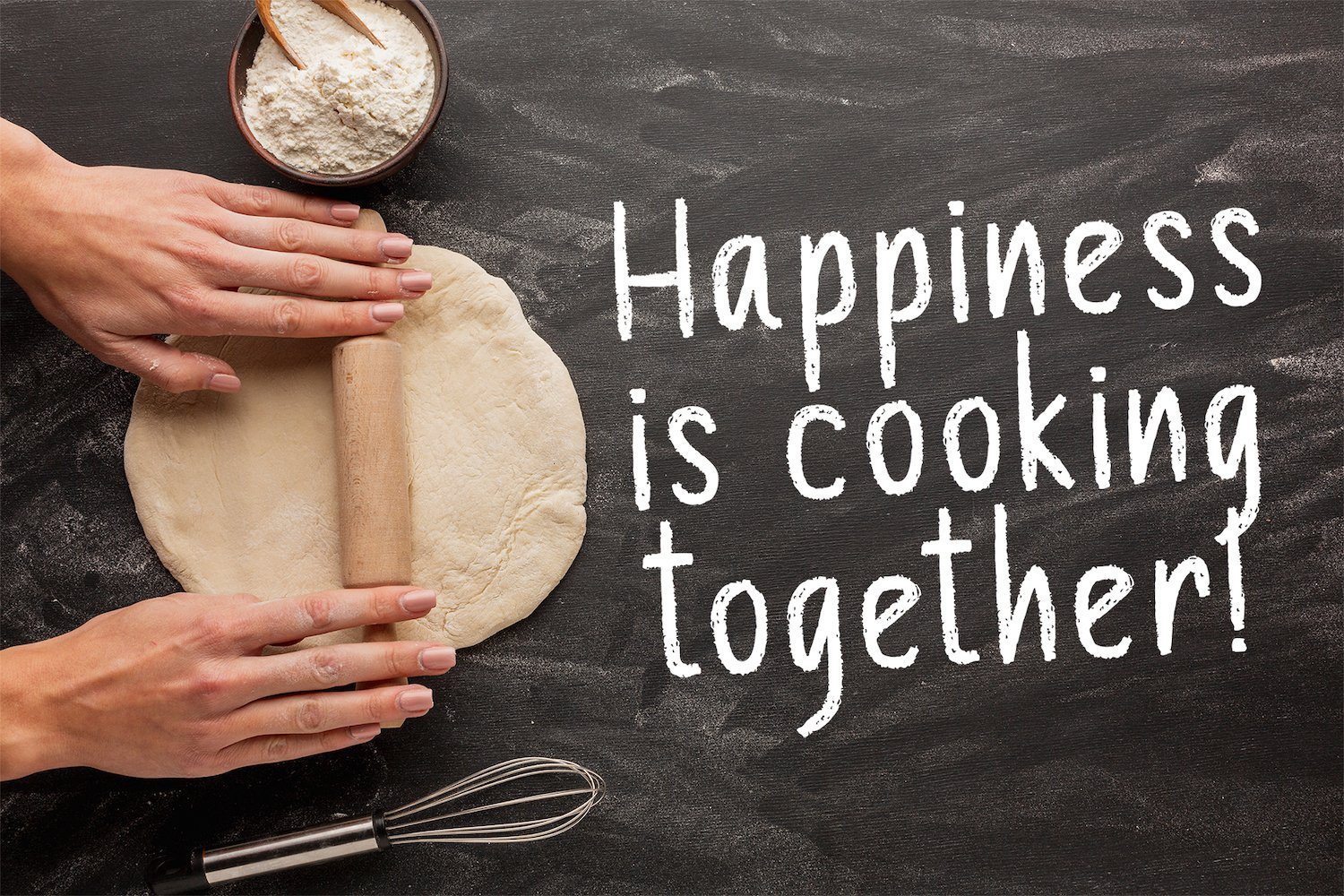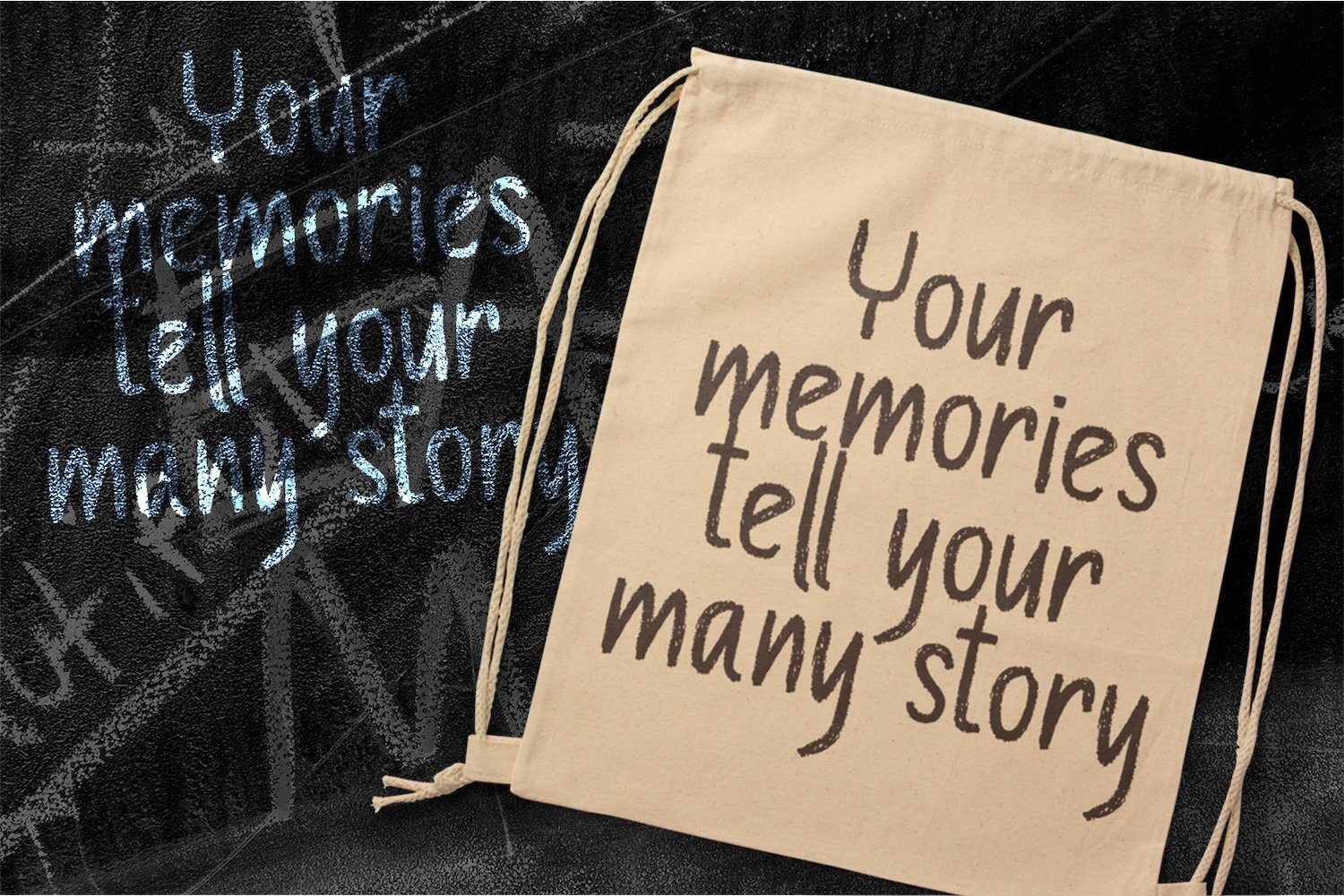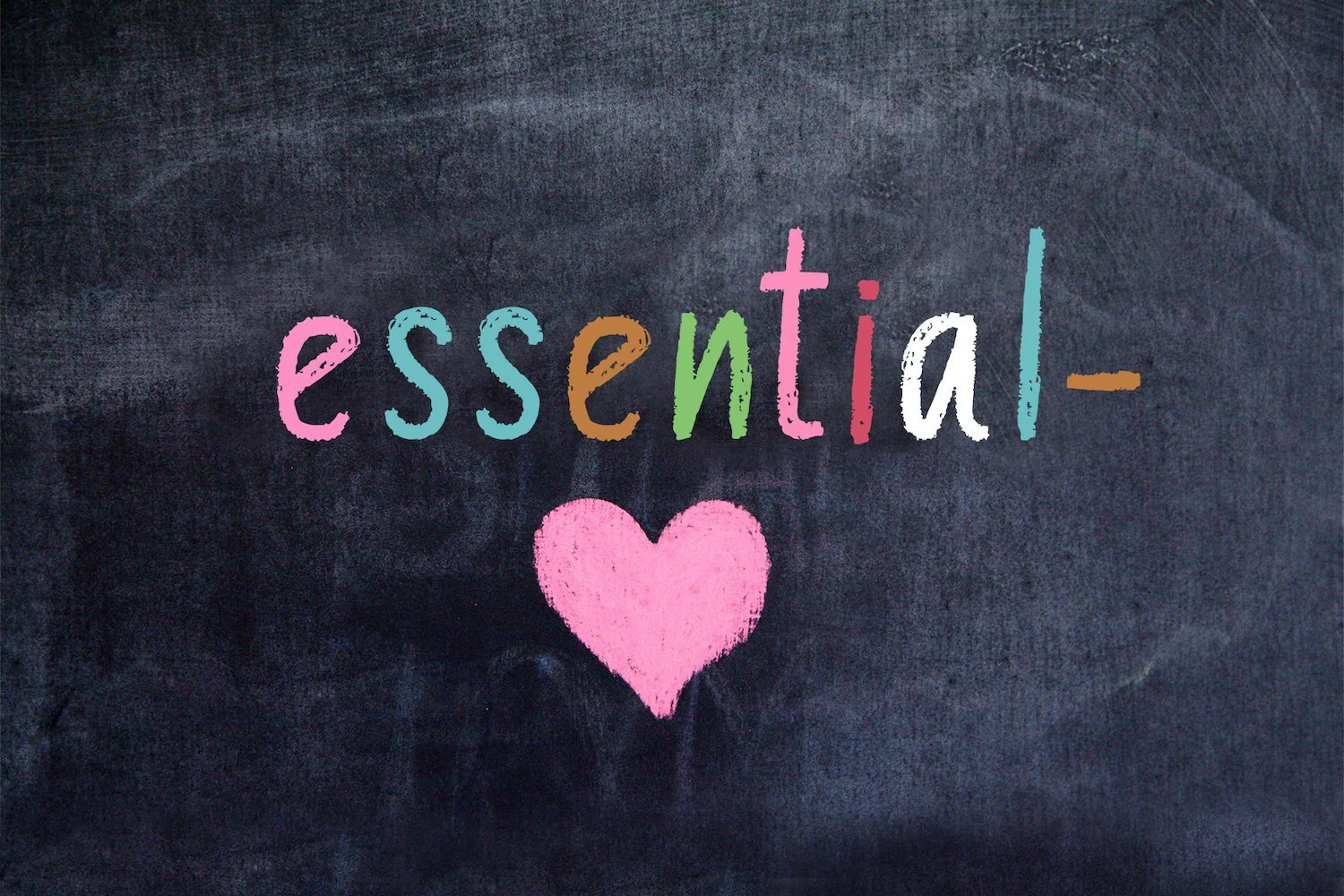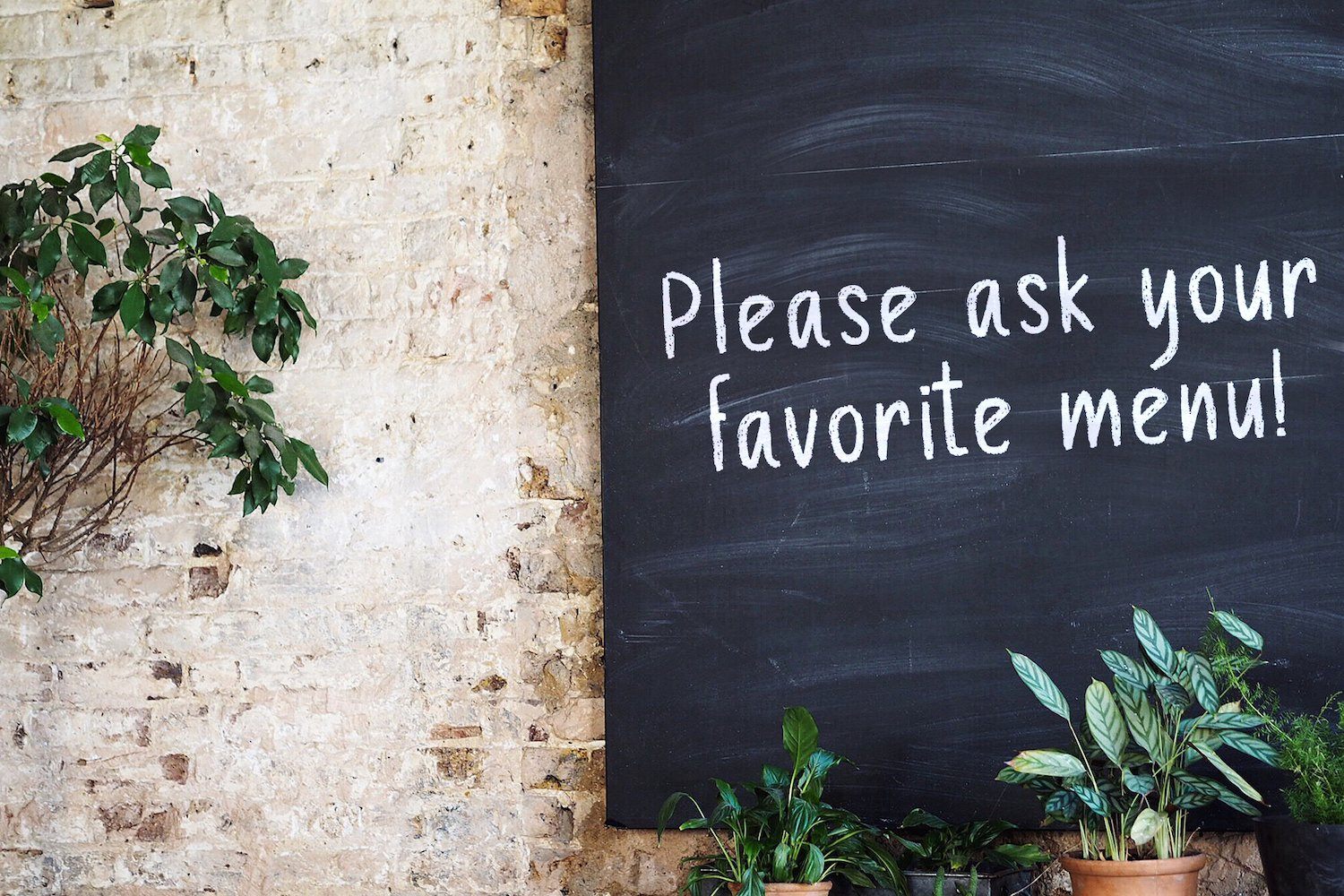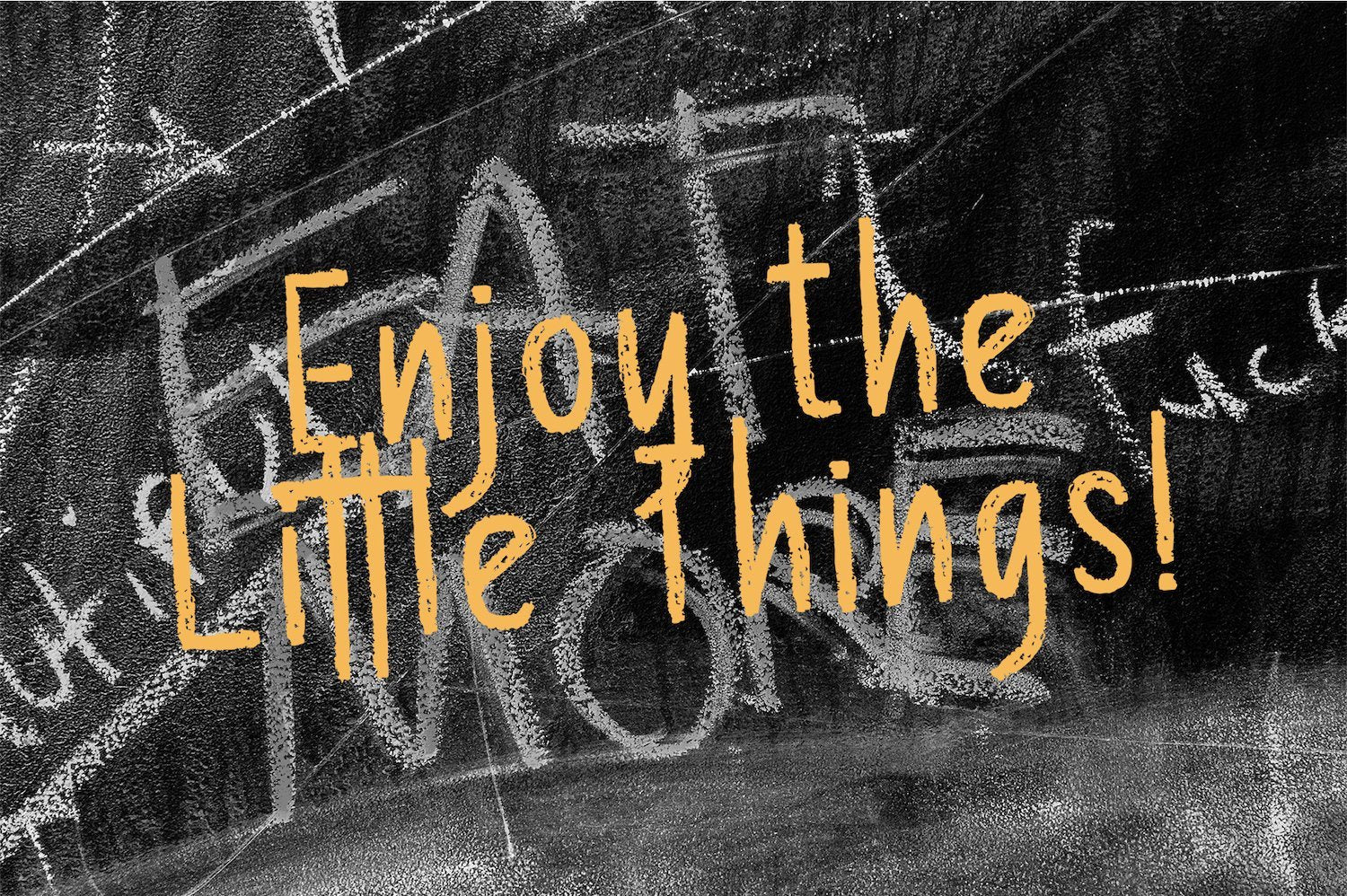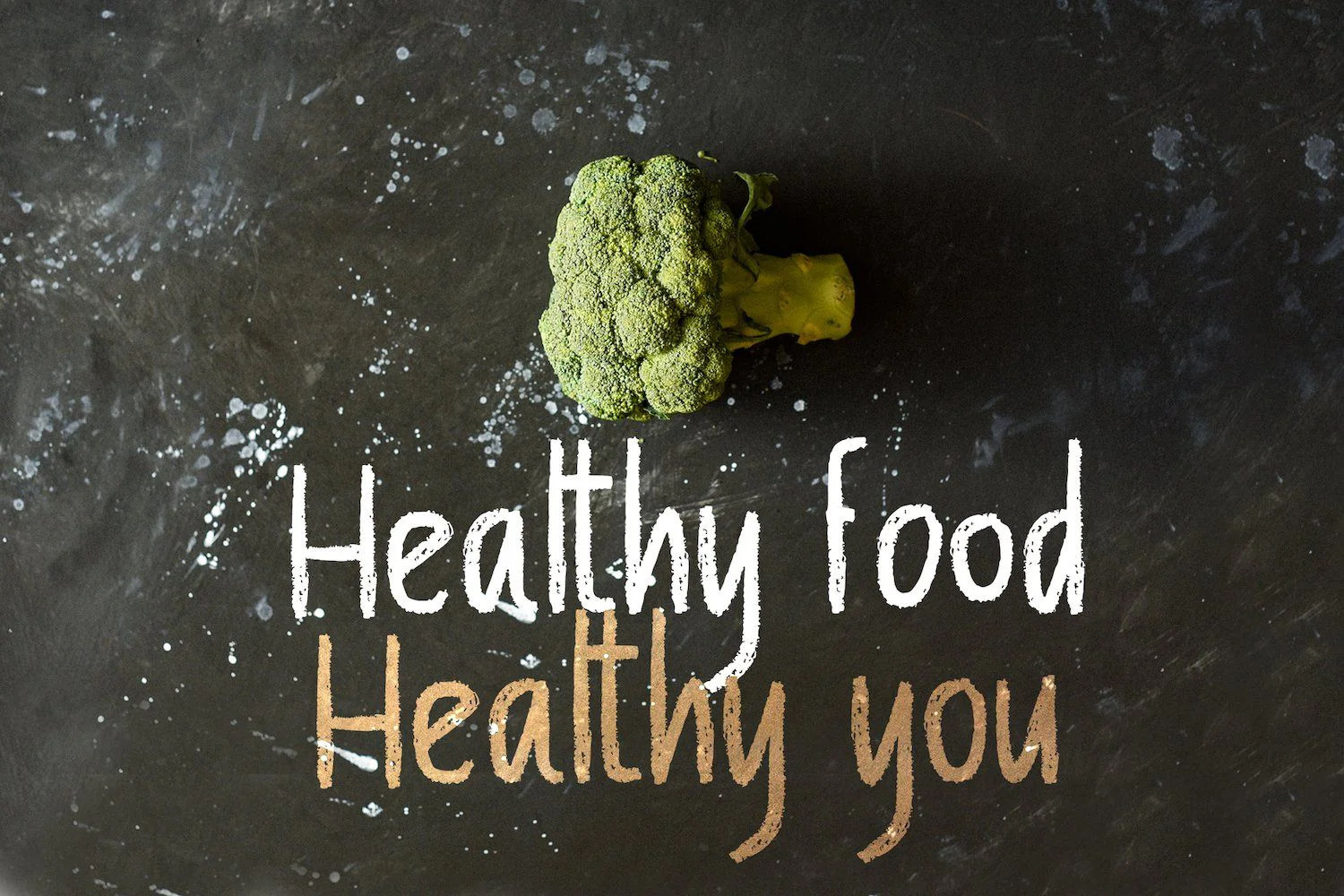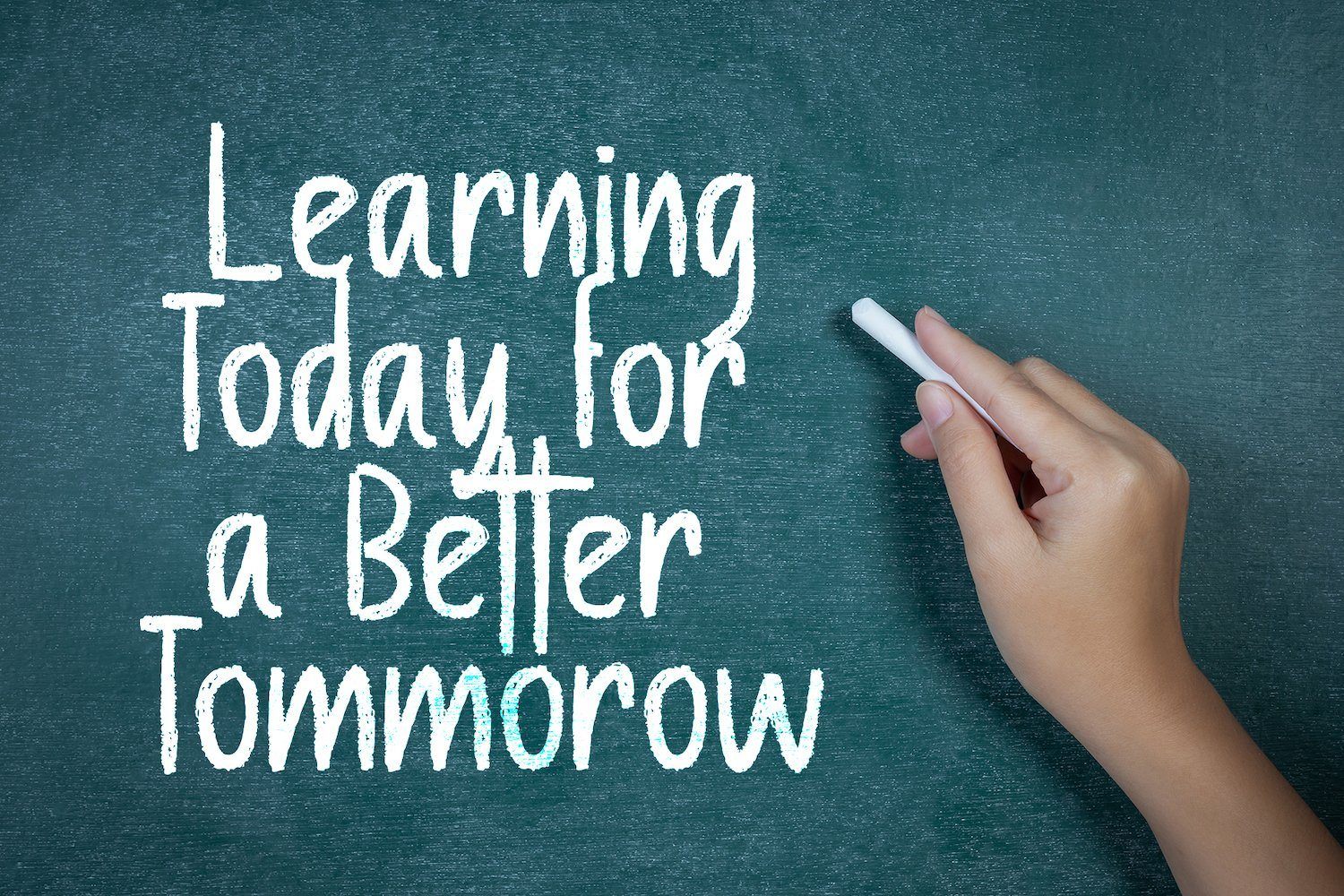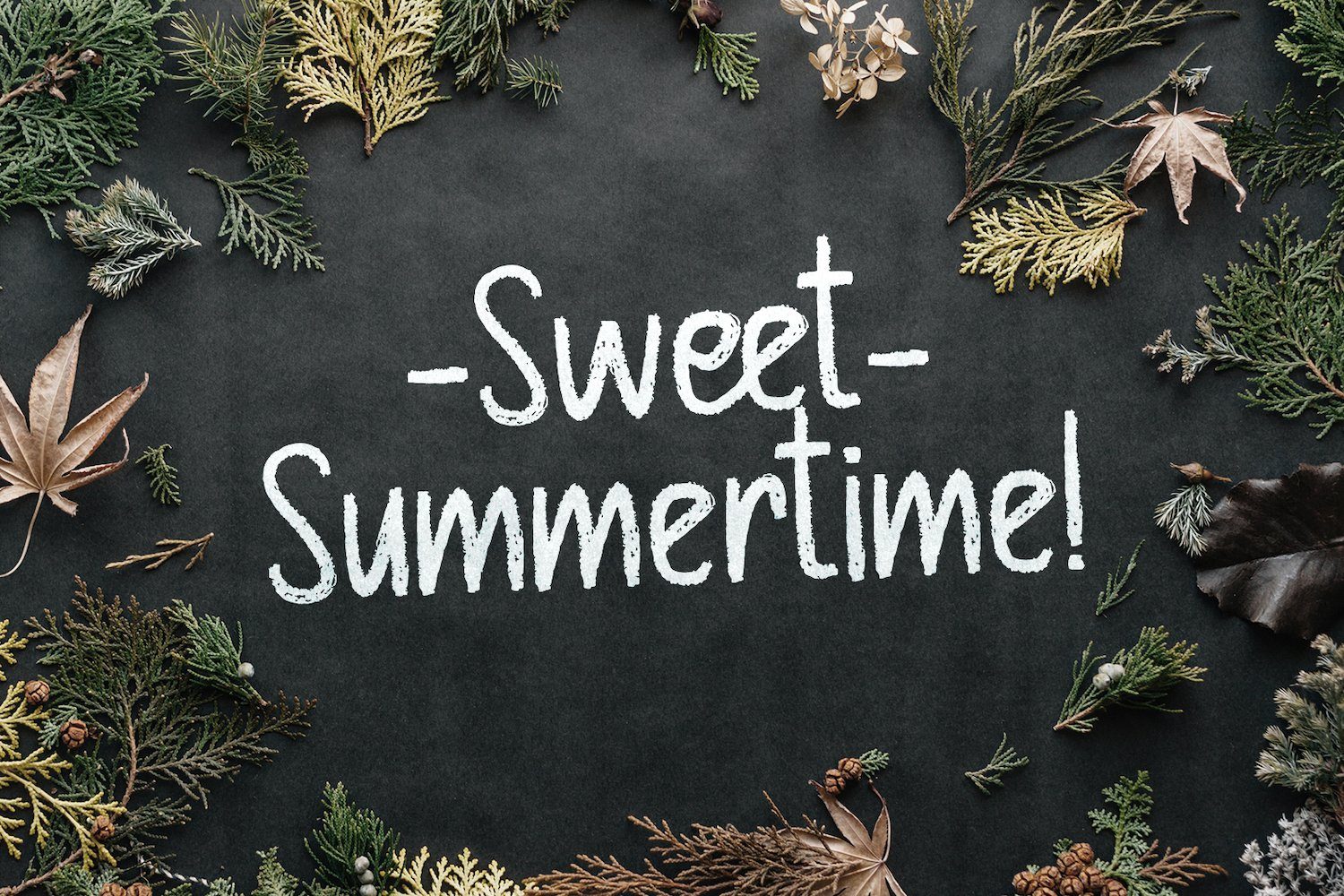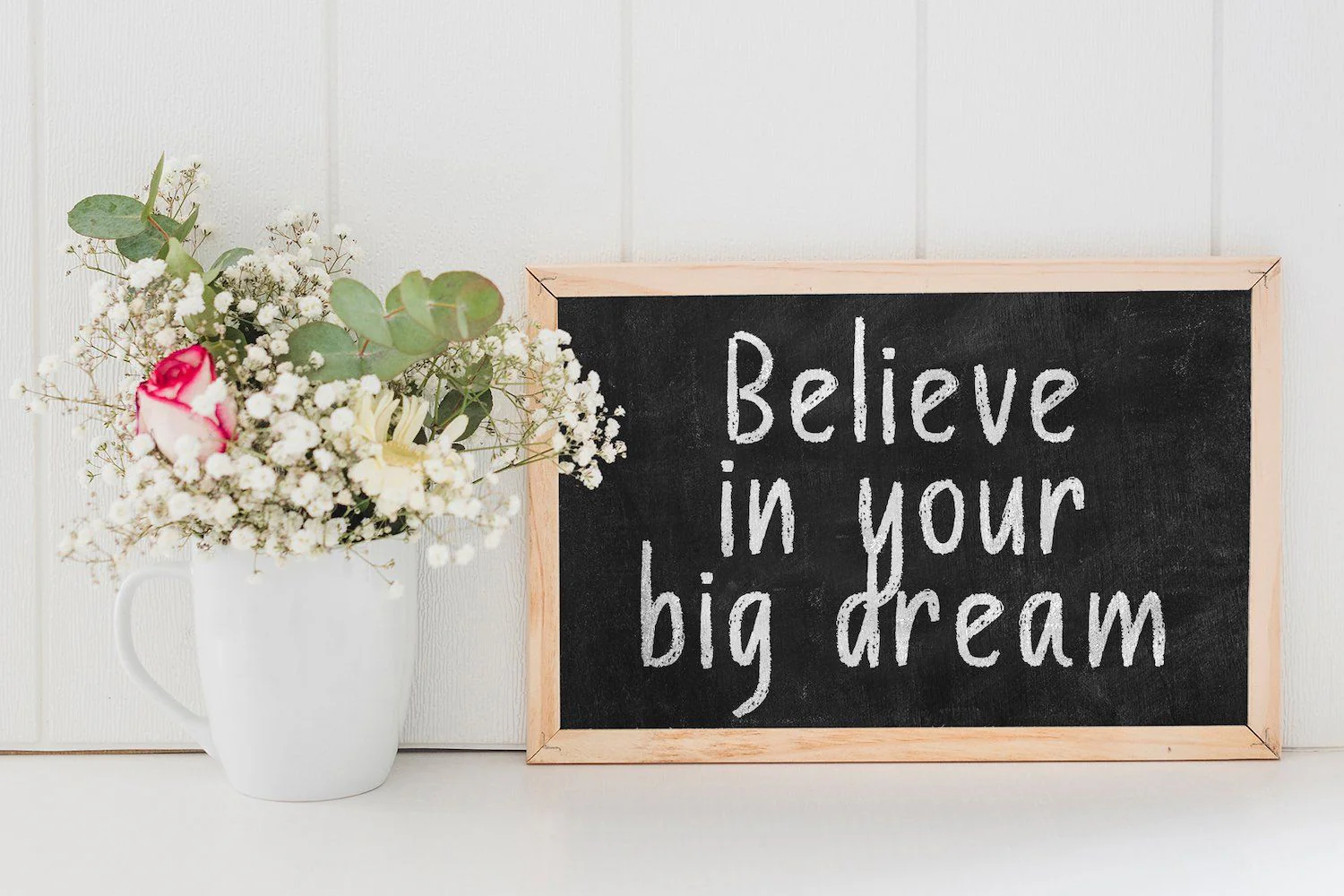
Chalk Board - A Handmade Chalk Font
Introducing Chalk Board - A Handmade Chalk Font
Chalk Board is a handmade textured brush font, inspired by the chalk. This unique script will add a serious and sincere feel to any design idea!
Introducing Chalk Board - A Handmade Chalk Font
Chalk Board is a handmade textured brush font, inspired by the chalk. This unique script will add a serious and sincere feel to any design idea!